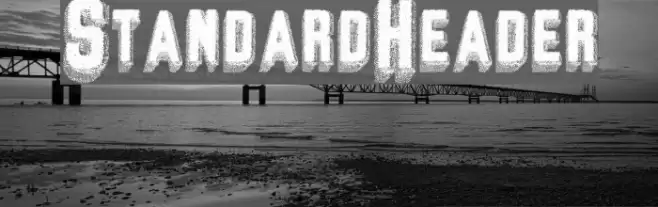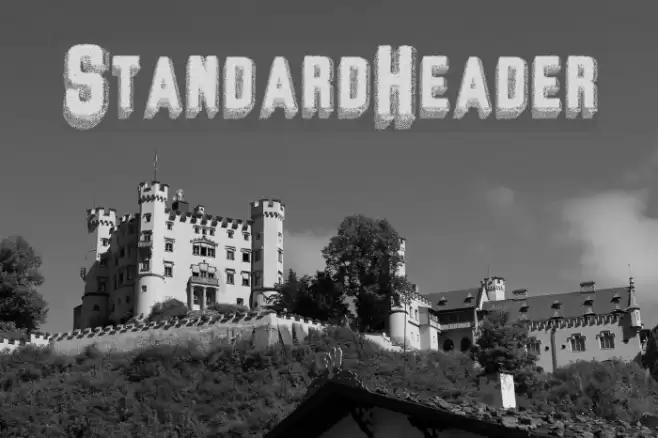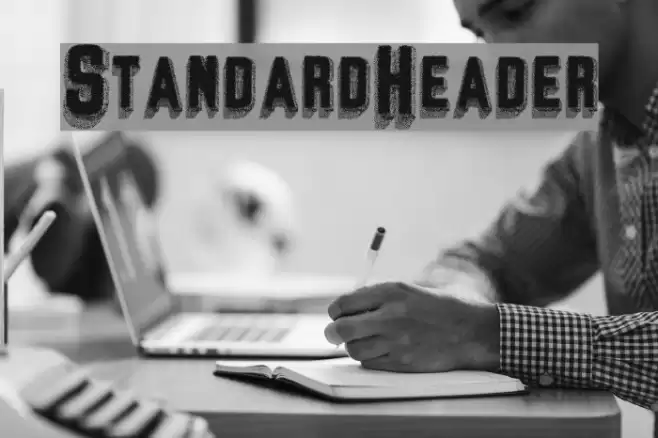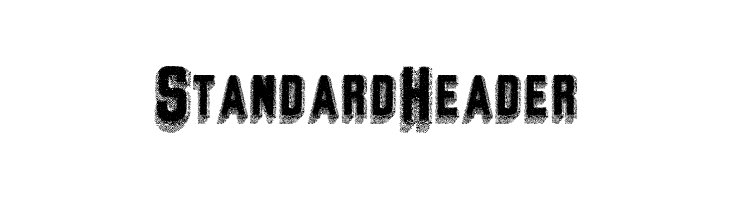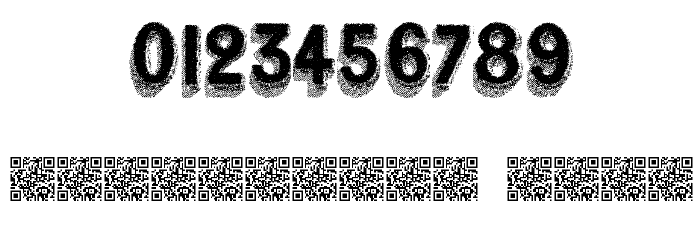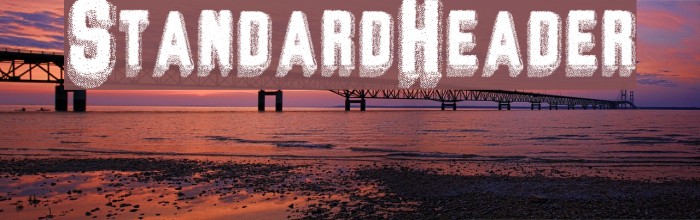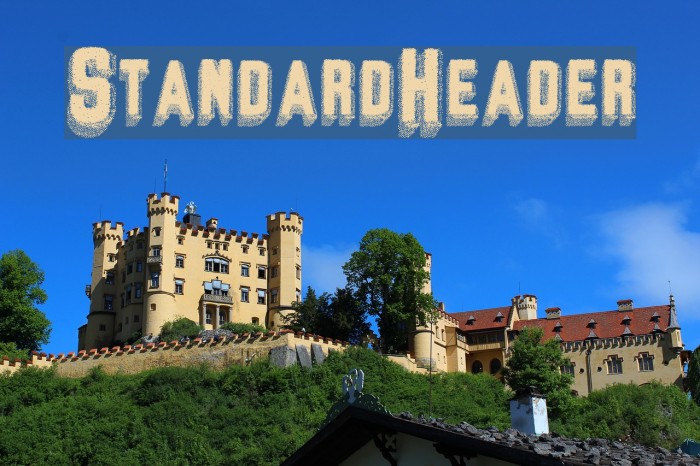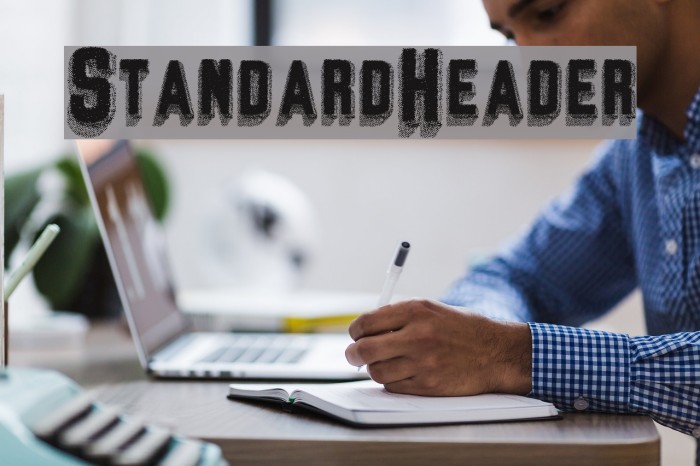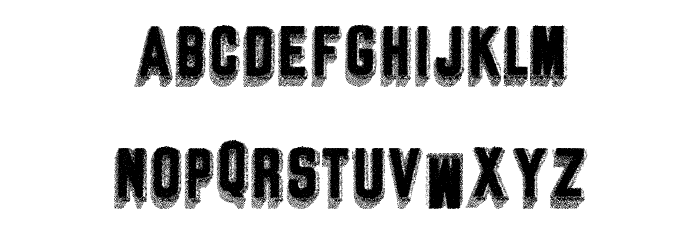
StandardHeader Font
StandardHeader Description
This font features a bold, textured style with a distressed, grunge-like appearance. The characters are uppercase and numerals, with a rough, uneven edge that gives a sense of movement and depth. The texture resembles a stippled or speckled pattern, adding a unique visual interest. The overall look is bold and impactful, making it suitable for attention-grabbing designs. The font's style is reminiscent of vintage or retro aesthetics, often used in designs that require a rugged or industrial feel. The characters are evenly spaced, maintaining readability despite the textured effect.
A bold, textured font with a distressed, grunge-like appearance from Distorted Eroded fonts.
- Proposed Projects: Ideal for posters, album covers, branding for edgy or vintage-themed products, and any design needing a bold statement.
- Overall Style: Vintage